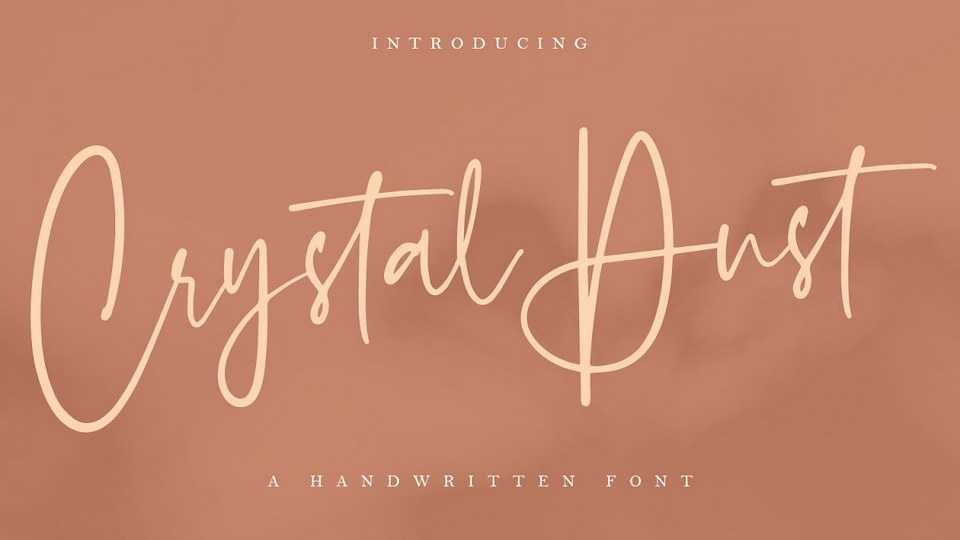
Crystal Dust Script Font › Fontesk – Fonte Grátis
Download Crystal Dust font, stylish script made with a brush pen to produce perfect handwriting. Crystal Dust can be used for various projects such as social media, logos, weddings, branding and other graphic design projects.